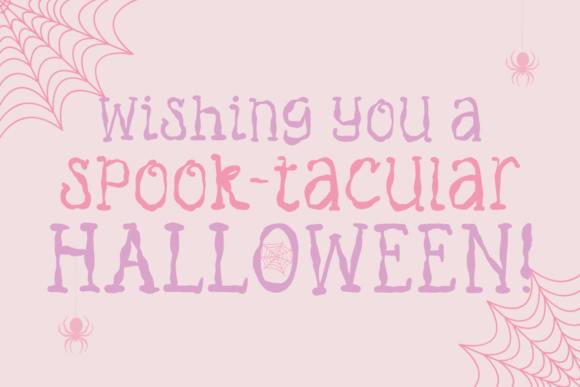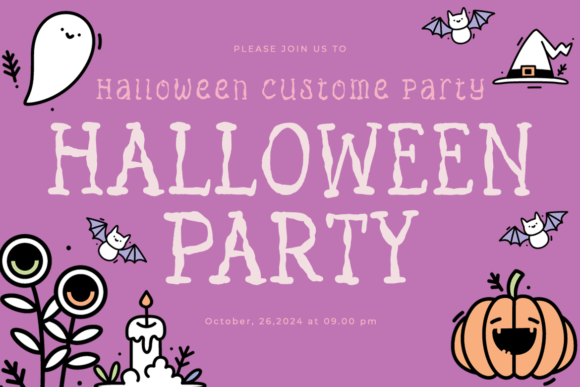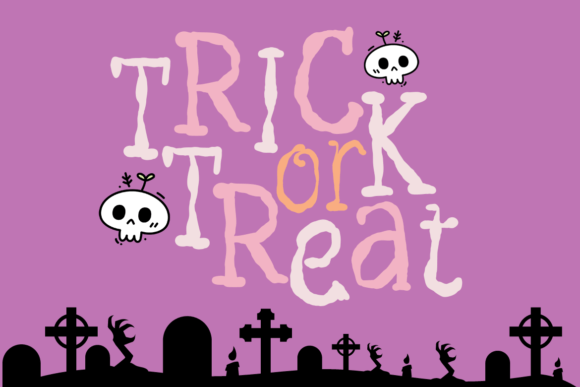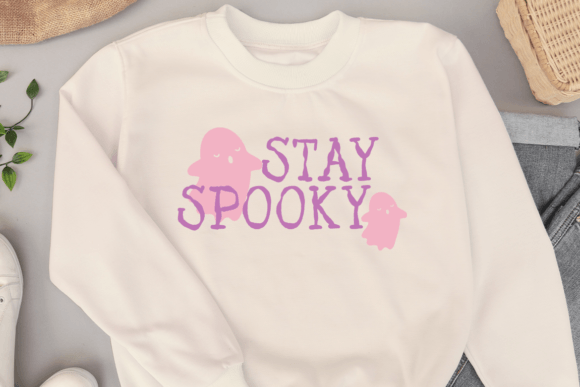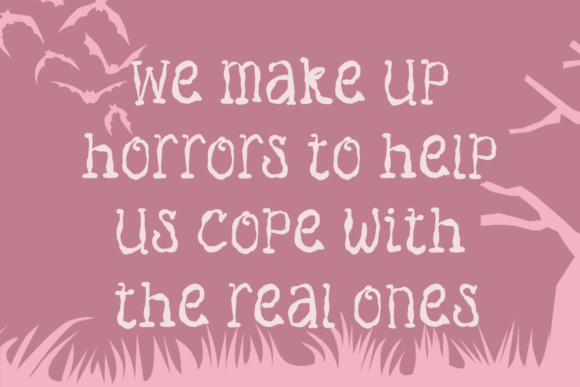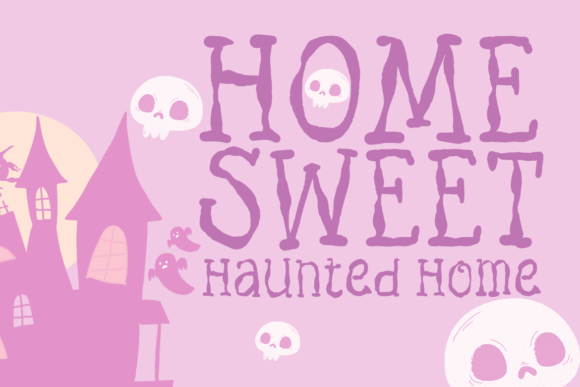
Introduction to Sketchy Ghost Font Font
Fonts play a crucial role in design, and the Sketchy Ghost Font font is a typeface that brings both character and versatility to any project. Whether you’re working on a branding project, a website, or a print design, the Sketchy Ghost Font font offers a unique style that can elevate your work.
Sketchy Ghost is an incredibly unique and interesting display font.
Spooky and a bit creepy, this font will make each of your designs stand out .
Key Features of Sketchy Ghost Font Font
Why Choose Sketchy Ghost Font Font?
The Sketchy Ghost Font font is more than just a typeface – it’s a design tool that helps you communicate your message with style and clarity. Its unique character set and versatile design make it suitable for a wide range of applications, from elegant invitations to bold headlines.
With its carefully crafted letterforms and balanced proportions, the Sketchy Ghost Font font ensures readability and visual appeal across all mediums.
What makes Sketchy Ghost Font font special?
The Sketchy Ghost Font font stands out with its unique design, exceptional readability, and versatility across various design applications.